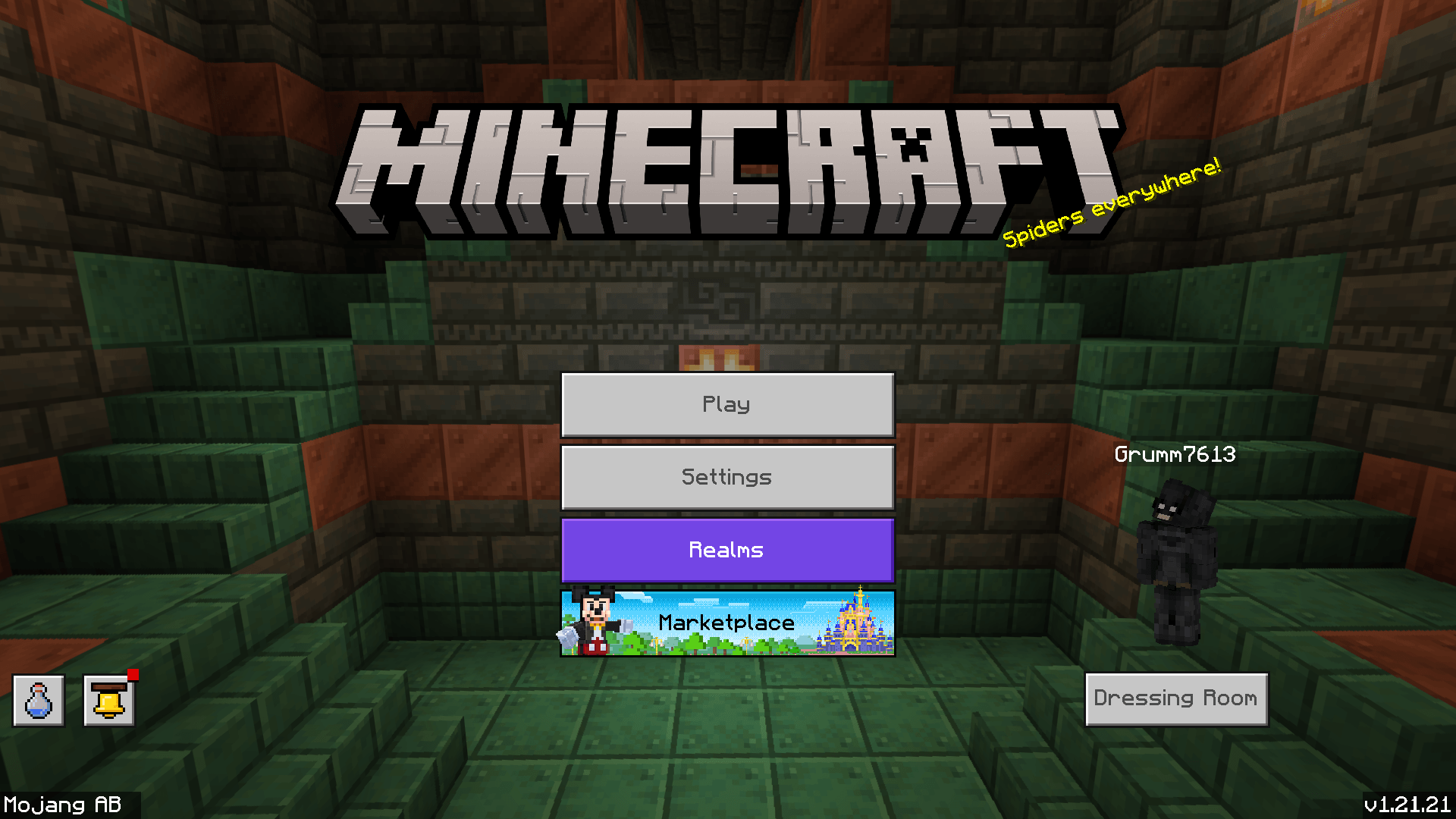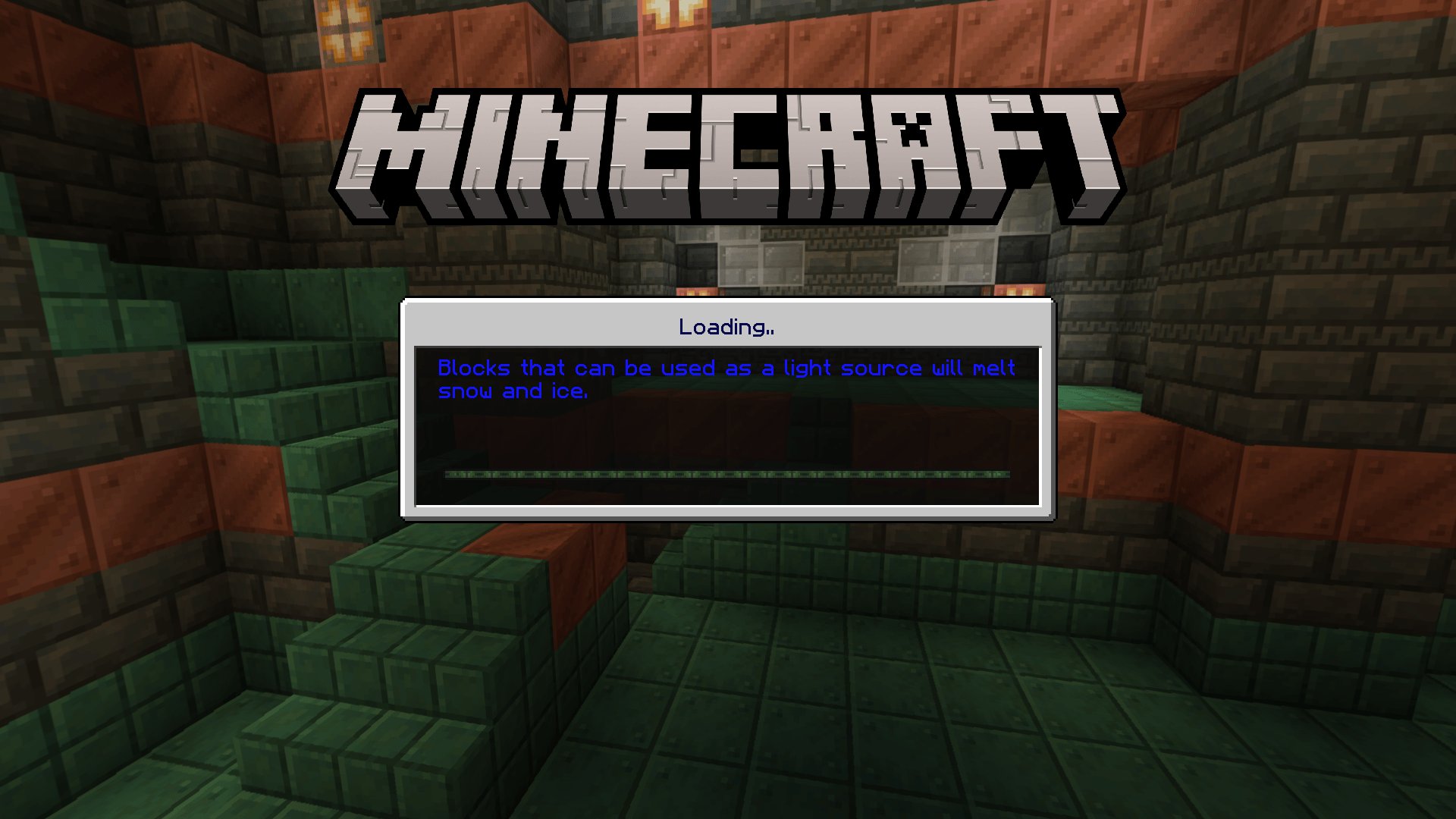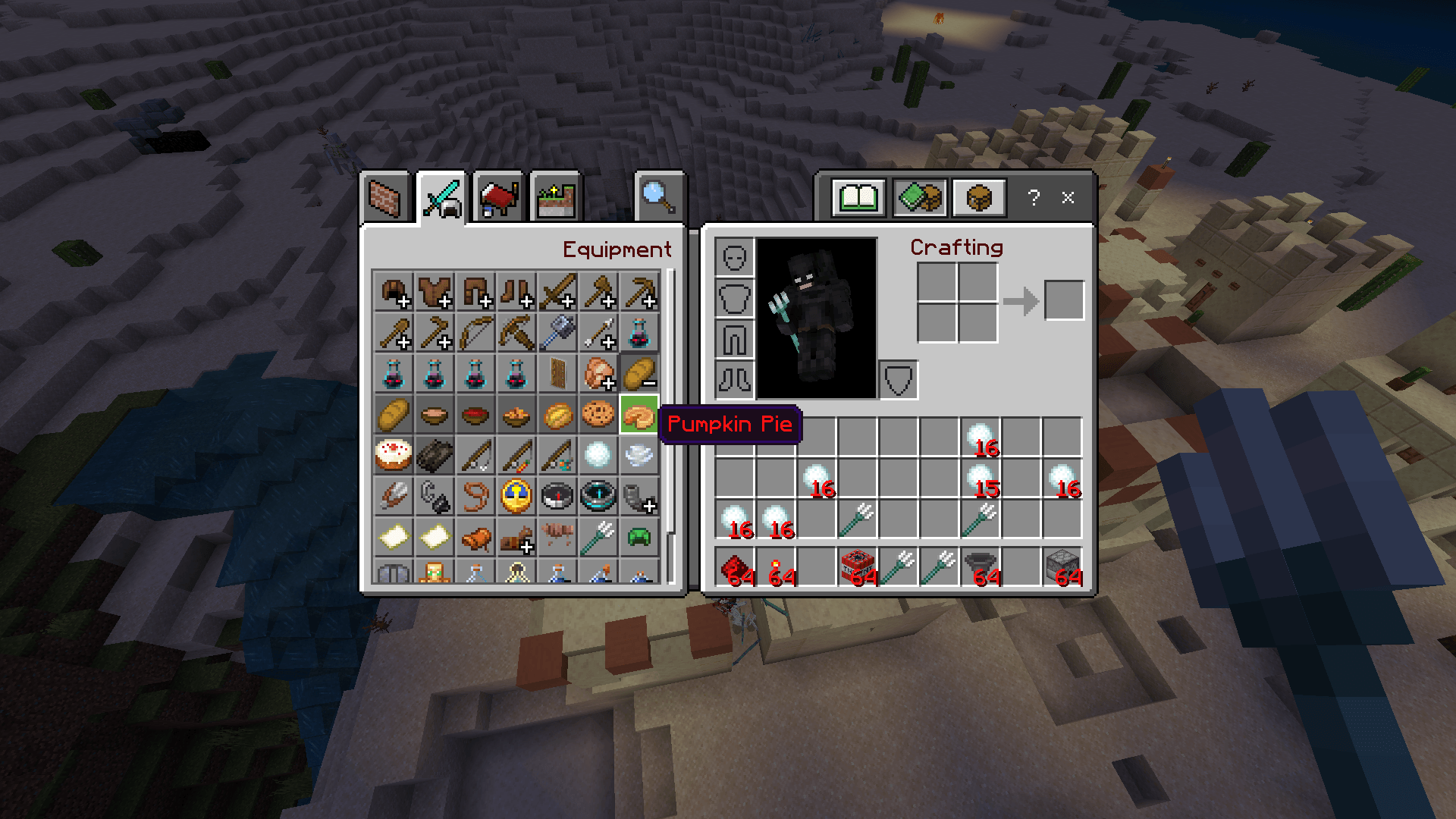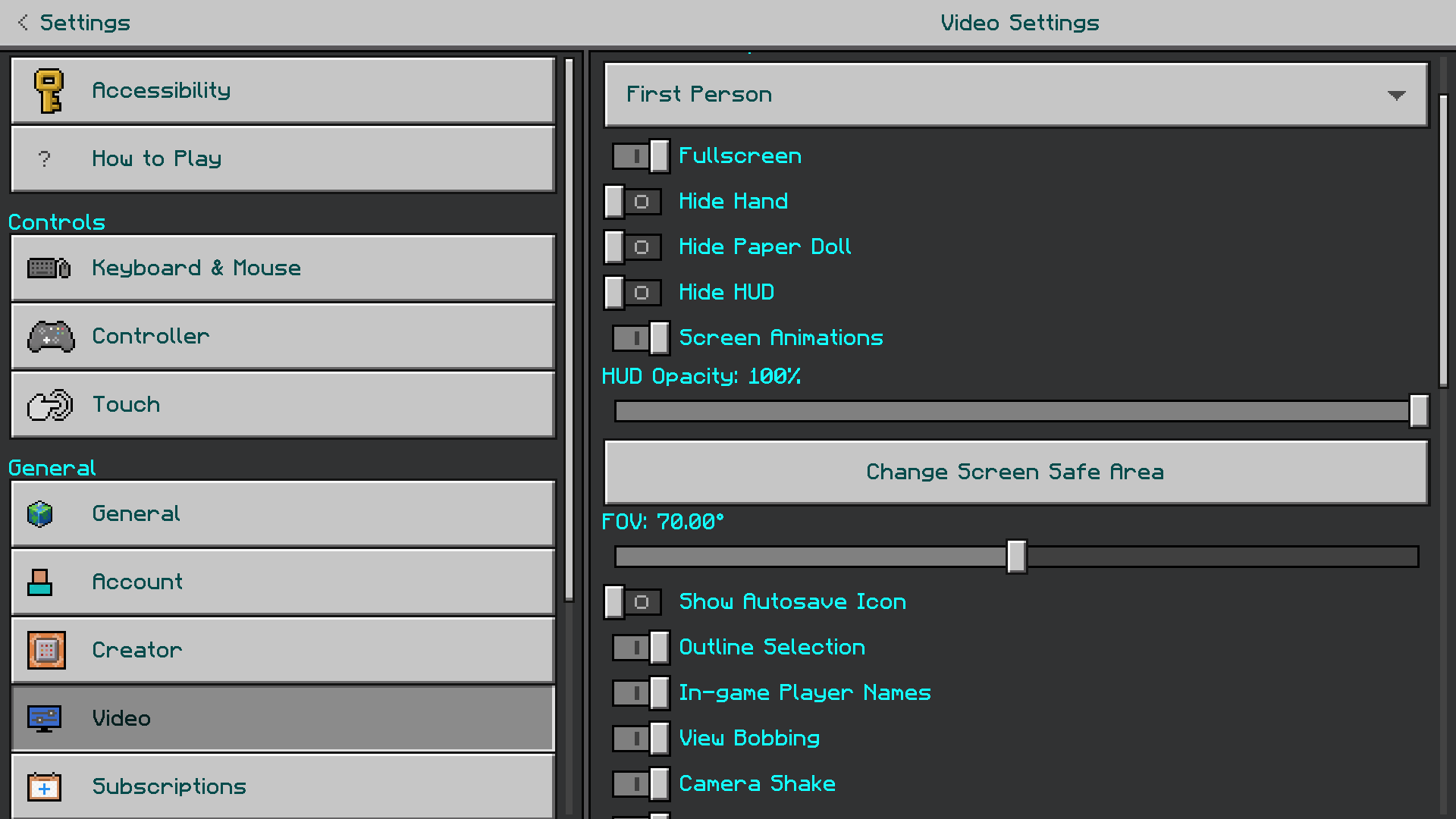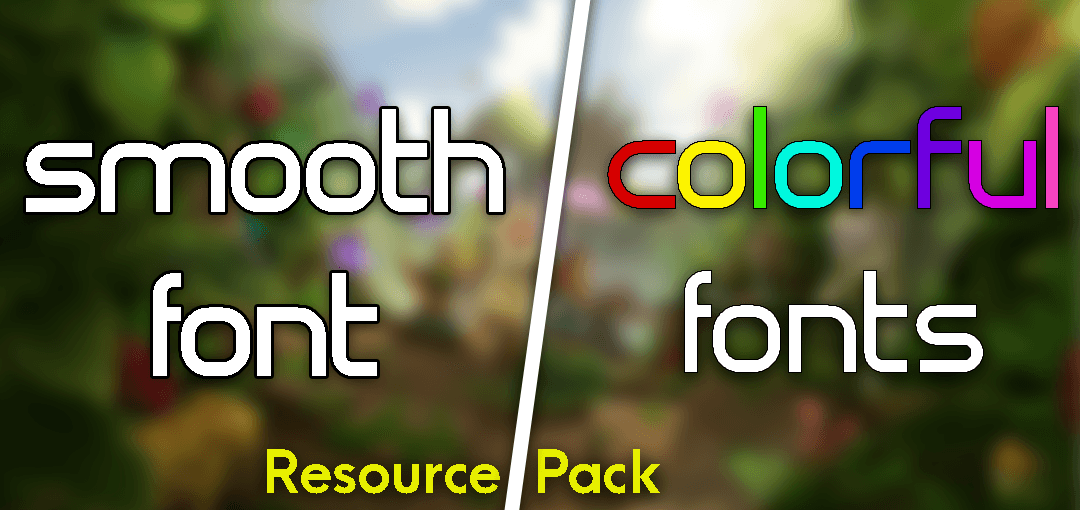
Smooth & Colorful Fonts Pack (1.21, 1.20) – MCPE/Bedrock
The classic Minecraft font fits well with the game’s UI and overall concept. But let’s be honest, we all love trying new things-new fonts, new features, and more. That’s the purpose of this resource pack. Smooth & Colorful Fonts Pack introduces a custom smooth font that looks clear and smooth while still fitting the classic Minecraft UI. Plus, it offers colored fonts that can be switched from the subpacks setting. Currently, it includes 10 different colored fonts.